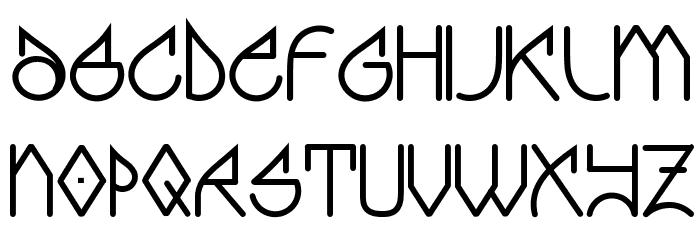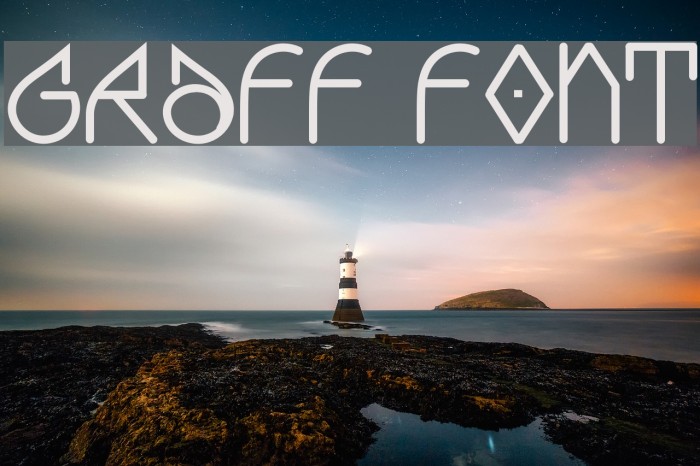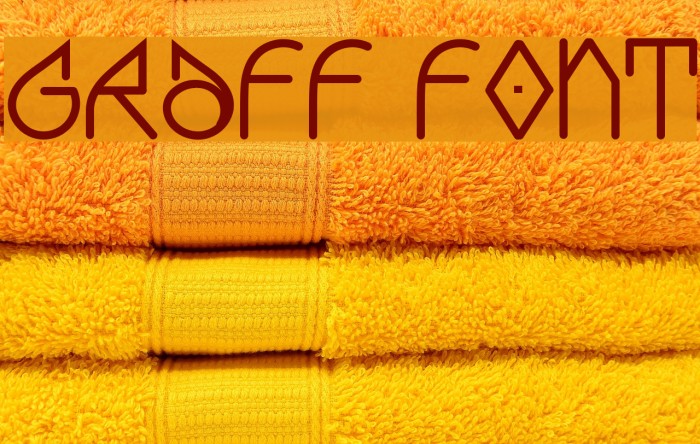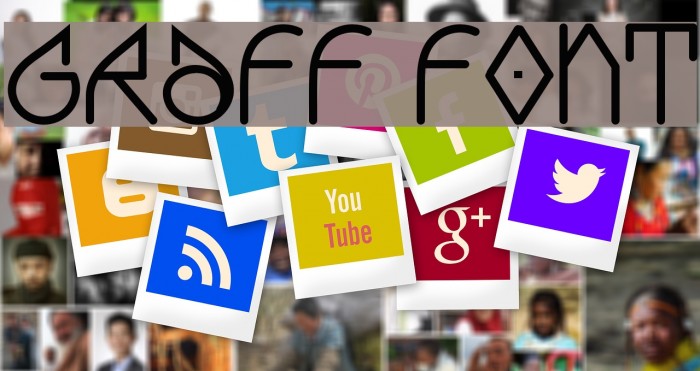
Graff Font
This font features a unique and artistic design with geometric and angular elements. The uppercase letters are characterized by sharp edges and distinct shapes, creating a modern and edgy appearance. The lowercase letters maintain a similar style, ensuring consistency throughout the typeface. The numbers and special characters follow the same design principles, making them visually cohesive with the alphabet. The overall look is bold and striking, suitable for projects that require a contemporary and unconventional aesthetic.
A geometric and angular font with a modern, edgy style.
- Proposed Projects: Ideal for branding, posters, album covers, and any design project that seeks a modern and artistic touch.